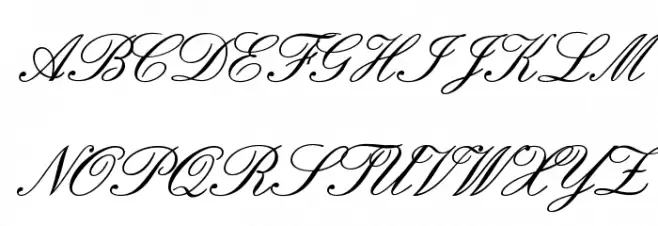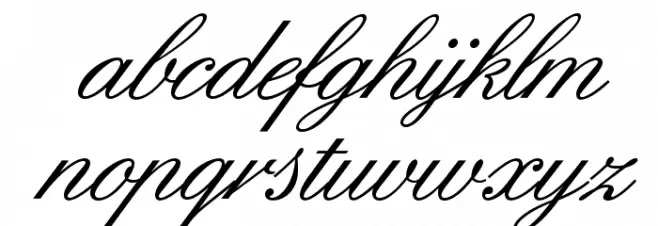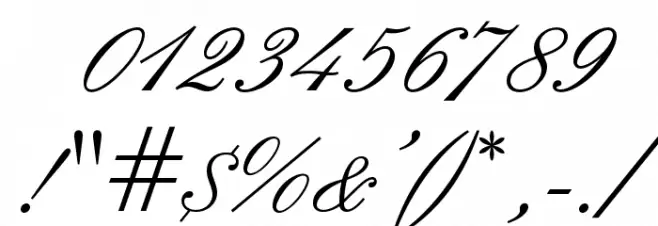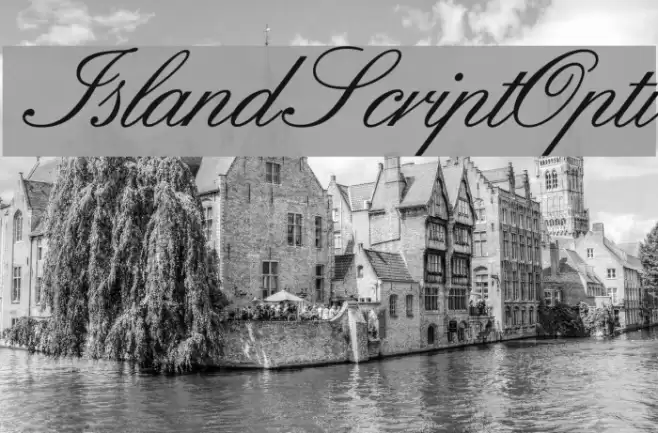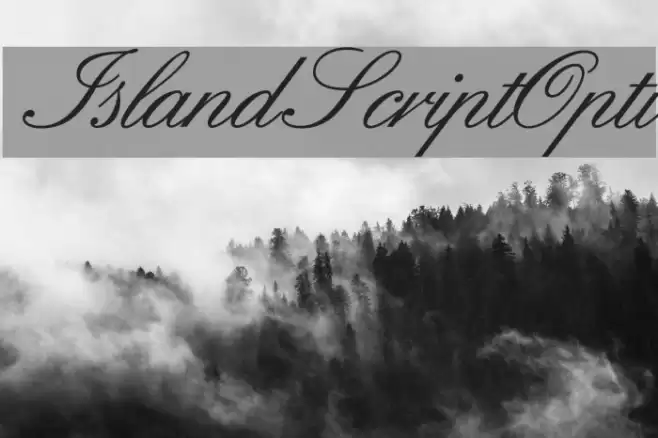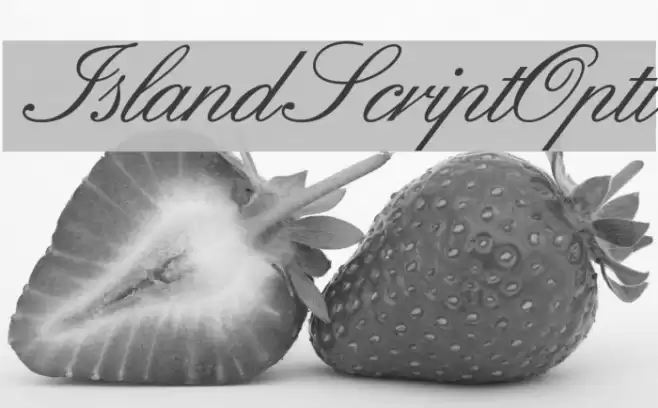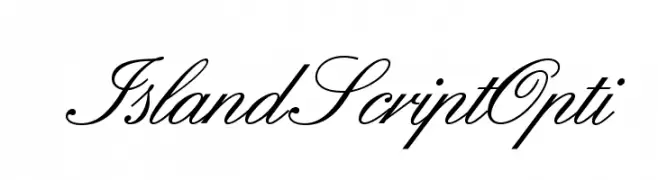
IslandScriptOpti
This elegant script font features flowing, cursive letters with a classic and sophisticated appearance. The uppercase letters are ornate and slightly slanted, while the lowercase letters maintain a smooth and connected flow, enhancing readability. The numerals are stylishly curved, matching the overall script style. Special characters are designed with the same fluidity, making them blend seamlessly with the text. This font is ideal for projects that require a touch of elegance and formality, such as invitations, greeting cards, and branding materials. Its artistic flair makes it suitable for decorative purposes, while its readability ensures it can be used effectively in various design contexts.
An elegant and flowing script font with a classic, sophisticated style.
- Proposed Projects: Ideal for wedding invitations, greeting cards, elegant branding, and decorative projects.
- Category: Script
- Overall Style: Classic
- Use Case: Headlines, Logos, Invitations